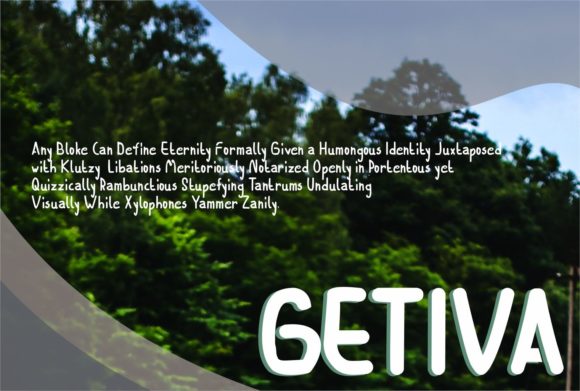
Step into the realm of Getiva Font, a captivating display font that weaves a spell of visual allure, transforming your creative endeavors into masterpieces. Its clean lines and adaptable nature make it the perfect choice for a myriad of projects, beckoning you to explore its endless possibilities.
Unleash the power of Getiva Font and watch as your posters, flyers, and prints leap off the page, captivating the hearts and minds of your audience. Its enchanting presence will leave an indelible mark, ensuring that your messages are not just seen, but deeply felt.
Picture yourself crafting a play script, the words flowing from your fingertips like liquid gold. Getiva Font becomes your trusted companion, effortlessly embodying the emotions and nuances of your characters, bringing them to life with each stroke. The audience is mesmerized, transported into a world of imagination and wonder, thanks to the magic of this extraordinary font.
With Getiva Font, every design project becomes an opportunity to showcase your creative genius. Its versatility knows no bounds, adapting seamlessly to a myriad of styles and themes. Whether you're crafting a whimsical invitation, a sleek brochure, or a striking social media post, Getiva Font will elevate your work to new heights, captivating your audience with its timeless elegance.
Don't settle for ordinary fonts that blend into the background. Embrace the power of Getiva Font and unlock a world of creativity and expression. Its beauty lies in its ability to transform the mundane into the magnificent, leaving a lasting impression on all who behold it.
So, embark on this creative journey with Getiva Font as your guide. Let its captivating presence ignite your imagination and produce designs that resonate with your audience, leaving them spellbound and eager for more. The world of Getiva Font awaits you – a world where creativity knows no limits.